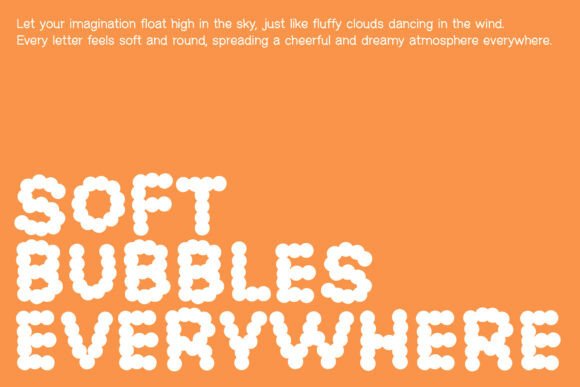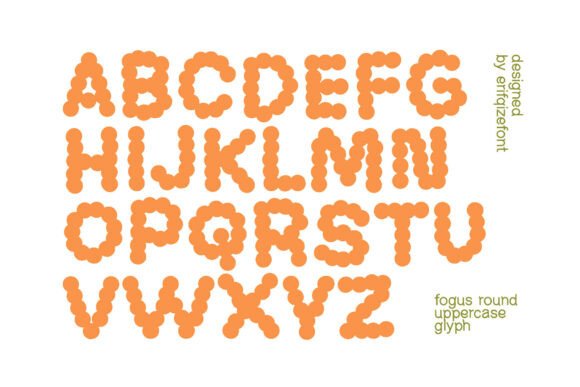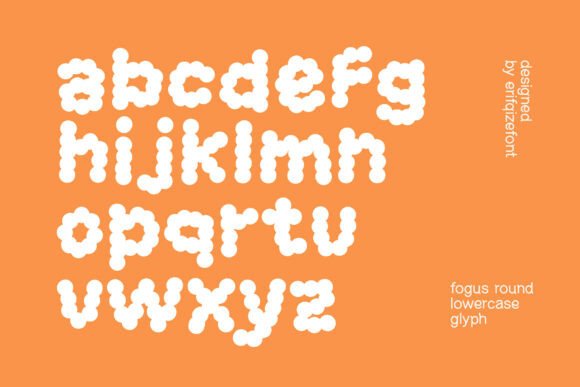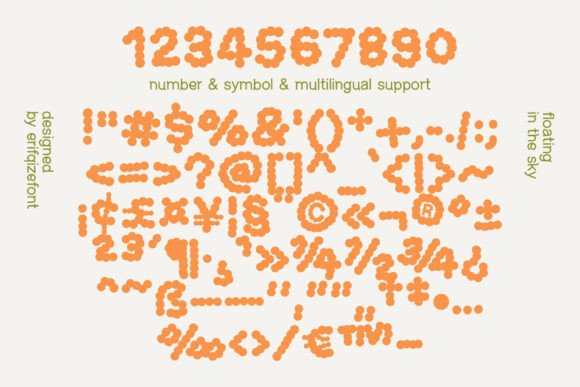
Introduction to Fogus Font
Fogus Round is a playful, rounded display font built from soft circular forms that create a friendly and cheerful visual personality.
Each letter is constructed with bubble-like shapes, giving the typeface a warm, approachable, and expressive character perfect for fun and creative design work This font is ideal for childrenโs projects, playful branding, packaging, posters, social media graphics, and lifestyle visuals.